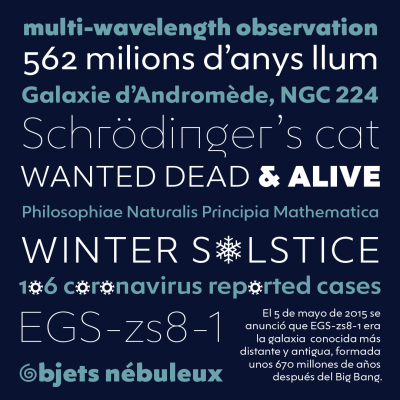
Audacity Font
Audacity Font is perfect for bold startup branding, fearless entrepreneur communications, daring innovation campaigns, confident leadership materials, revolutionary product launches, breakthrough technology interfaces, courageous social movements, pioneering business ventures, disruptive brand identities, and transformative change communications.
Audacity Font is exciting because it embodies the fearless spirit and unwavering confidence of true innovators who dare to challenge conventions and reshape the world through bold vision and relentless determination. This exceptional typeface captures the essence of breakthrough thinking and revolutionary courage, making it an invaluable tool for brands seeking to communicate leadership, innovation, and the kind of bold confidence that transforms industries and inspires others to pursue ambitious dreams. The powerfully crafted letterforms seem to surge forward with the same unstoppable energy that drives paradigm-shifting innovations.
Audacity Font family includes Regular, Bold, Black, Fearless, Revolutionary, Breakthrough, Confident, and Pioneering variations, providing comprehensive solutions for bold brand systems that demand maximum impact and authentic leadership credibility.
Professional designers choose Audacity Font for projects requiring authentic innovation appeal and leadership credibility that resonates with forward-thinking audiences seeking breakthrough solutions and transformative experiences. This remarkable typeface excels in applications where conventional fonts cannot capture the necessary boldness and visionary atmosphere. The font's revolutionary character makes it particularly effective for technology startups, innovation consultancies, disruptive brands, and organizations leading industry transformation.
The comprehensive character set includes boldly crafted uppercase and lowercase letters with revolutionary proportions, breakthrough numerals, fearless punctuation marks, innovation symbols, leadership elements, and extensive multilingual support for global innovation markets. Audacity Font maintains exceptional legibility while delivering the authentic bold aesthetic that innovation brands require for market disruption.
Each letterform has been strategically designed to ensure maximum impact in competitive environments while projecting the confidence and vision that defines true industry leaders. The font's bold styling reflects the demanding standards of innovation leadership and the courage required to challenge established norms.